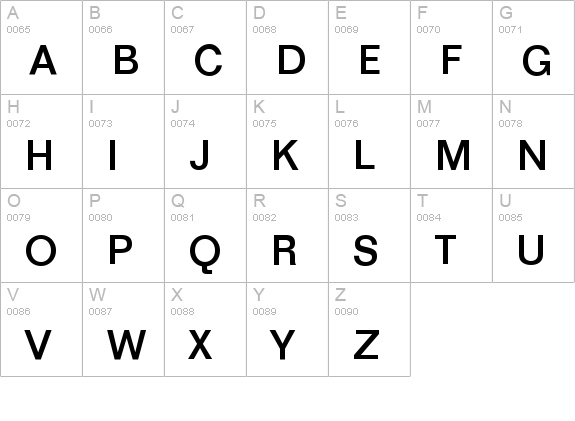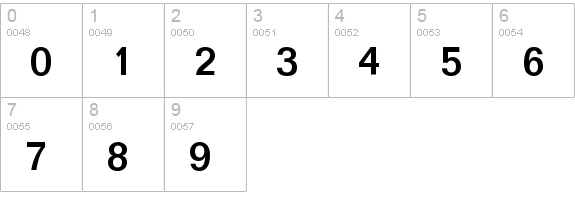
Layout SSi Font Details
Layout SSi is a versatile and modern font that is perfect for any design project. With its clean lines and contemporary style, this font is sure to make a statement. Whether you are designing a logo, creating a website, or working on a brochure, Layout SSi will bring your design to life. What makes Layout SSi even more appealing is that it is available for free. Yes, you heard it right – this incredible font can be downloaded for free at FontsMarket.com. This means that you don't have to worry about breaking the bank to use a high-quality font for your project. It's a win-win situation! Layout SSi has a wide range of characters and glyphs, making it suitable for various languages and design purposes. Its readability and legibility make it an excellent choice for both headlines and body text. The font's balanced letterforms and well-proportioned spacing create a harmonious and visually pleasing aesthetic. One of the standout features of Layout SSi is its versatility. It can adapt to different design styles and themes, whether you're going for a minimalistic look or a bold and vibrant design. The font's clean and modern appearance ensures that it will never go out of style, making it a timeless choice for any project. So why wait? Download Layout SSi for free today at FontsMarket.com and take your design projects to the next level. With this font in your arsenal, you'll have the freedom to create stunning and professional designs that will leave a lasting impression. Don't miss out on this fantastic opportunity to enhance your creativity and design skills. Get Layout SSi now and let your imagination soar!